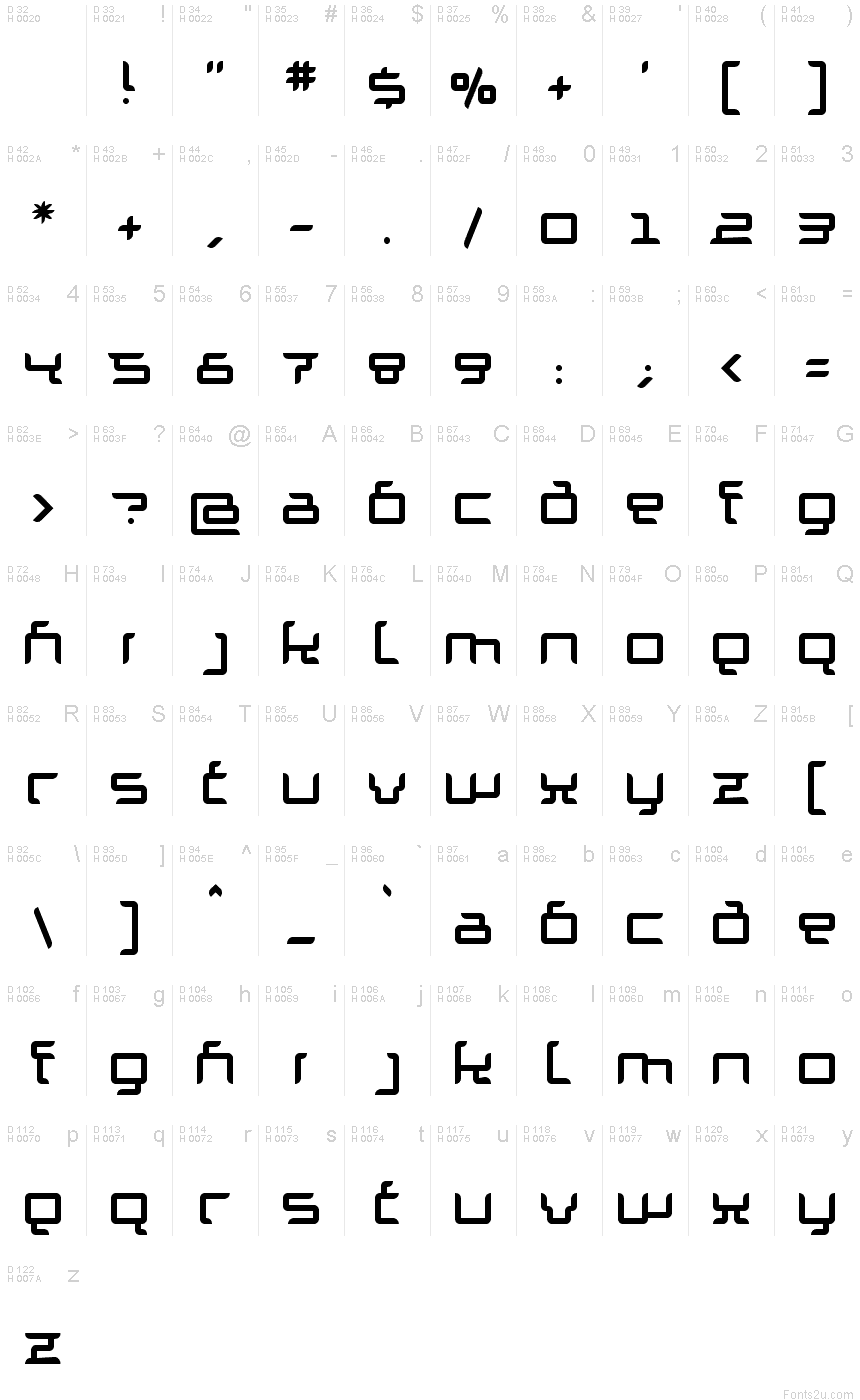
Granolae
Granolae font by Milan Zrnic is a free futuristic display typeface. Its chunky, squared forms look like they’ve been bent from a single glossy tube, with tight internal corners and rounded outer edges that feel both mechanical and playful. The letters lock together in a steady, rhythmic line, giving anything you set in Granolae a bold, techno-organic voice that’s hard to ignore.
This free font shines on sci‑fi posters, gaming titles, electronic music covers, tech event flyers, and experimental branding or logotypes. Using Granolae at larger sizes lets the quirky, pixel-meets-neon details really breathe; pair it with a clean geometric sans for body copy and you’ll get a sharp, cohesive futuristic system.